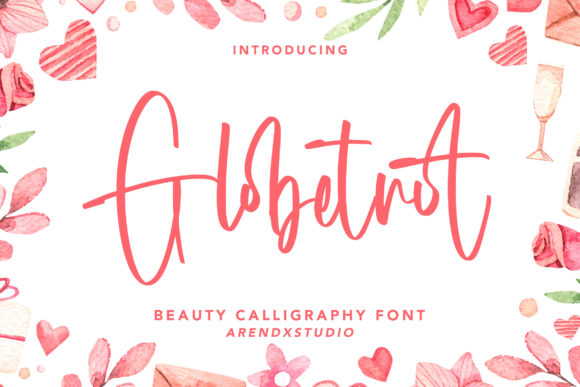
Prepare to be captivated by Globetrot, a stunning script font that exudes elegance and sophistication. Its graceful curves and flowing lines will effortlessly elevate your designs, making them stand out from the ordinary.
With Globetrot, your signature block will become a masterpiece, leaving a lasting impression on all who see it. Its timeless style will instantly transform your projects into works of art, evoking a sense of exclusivity and refinement.
Embrace the unique beauty of Globetrot and unleash your creativity. Its versatility empowers you to craft breathtaking designs that will leave your audience in awe. From eye-catching logos to enchanting wedding invitations, there are endless possibilities waiting to be explored.
Don't miss out on the opportunity to make your projects shine with the enchanting allure of Globetrot. Experience the magic of this extraordinary font and let your designs soar to new heights of elegance and enchantment!